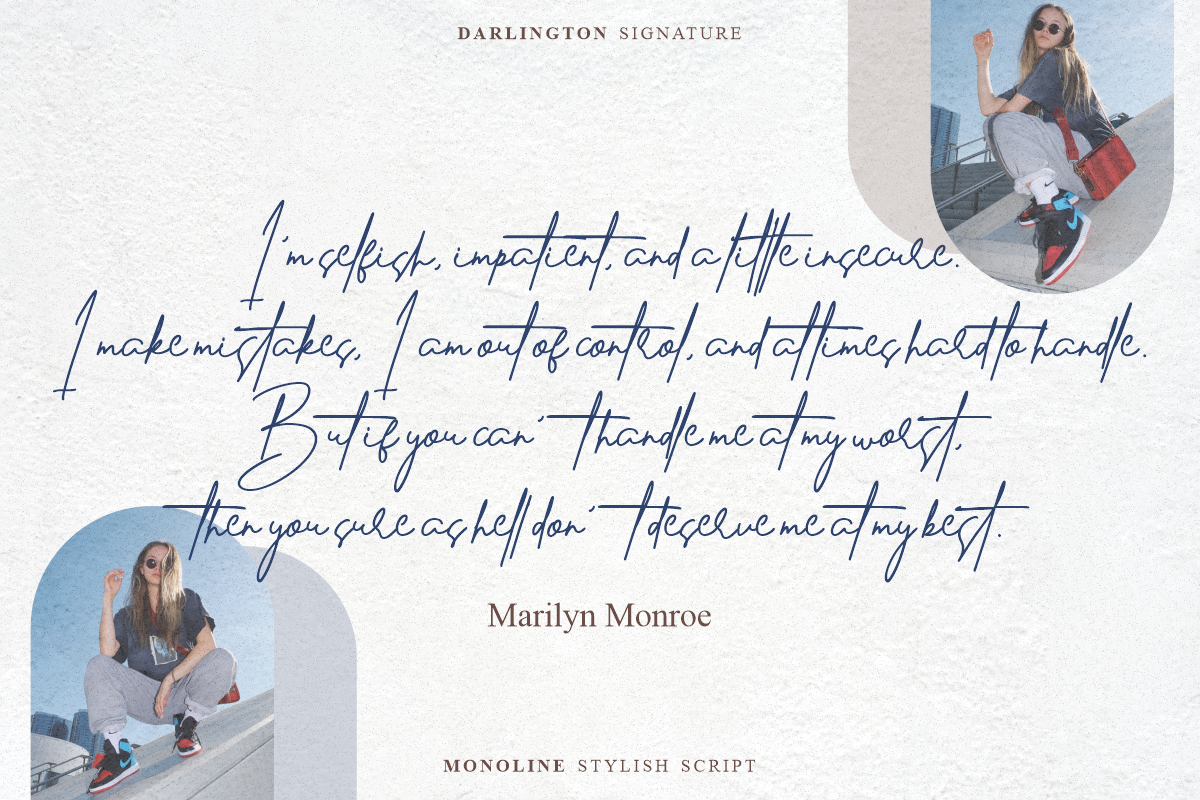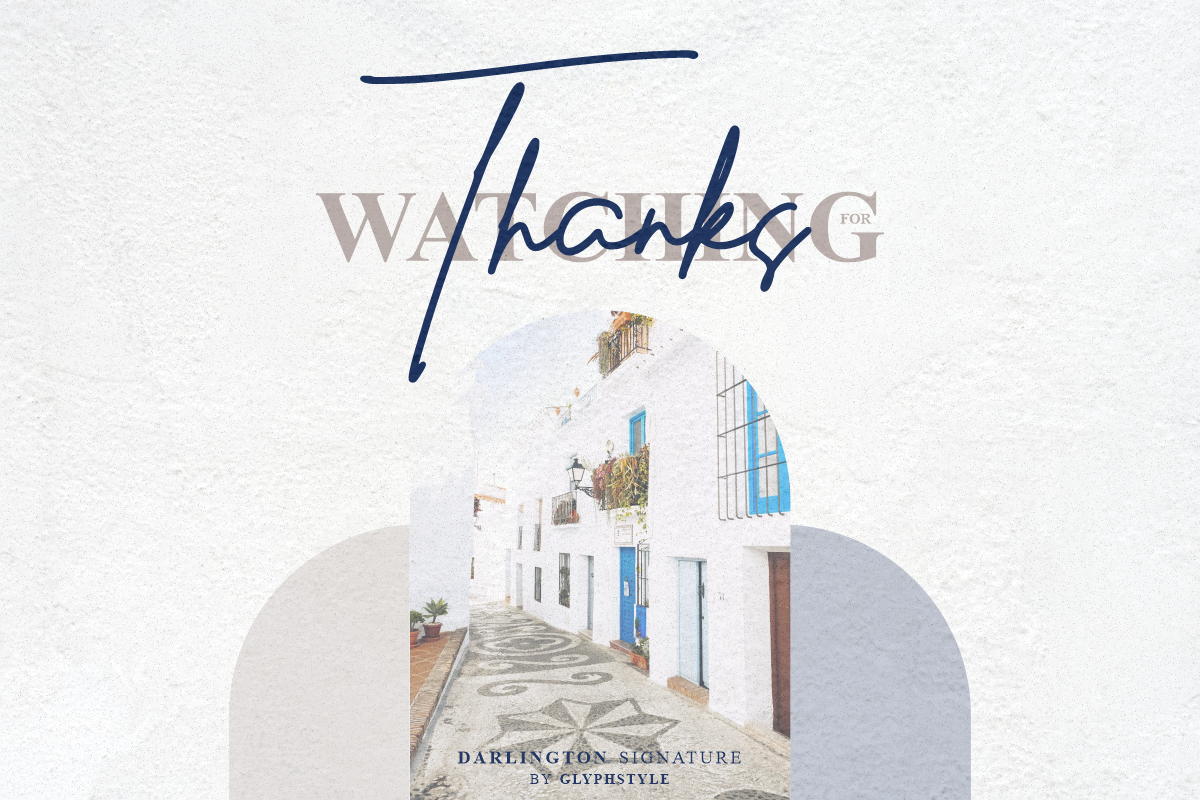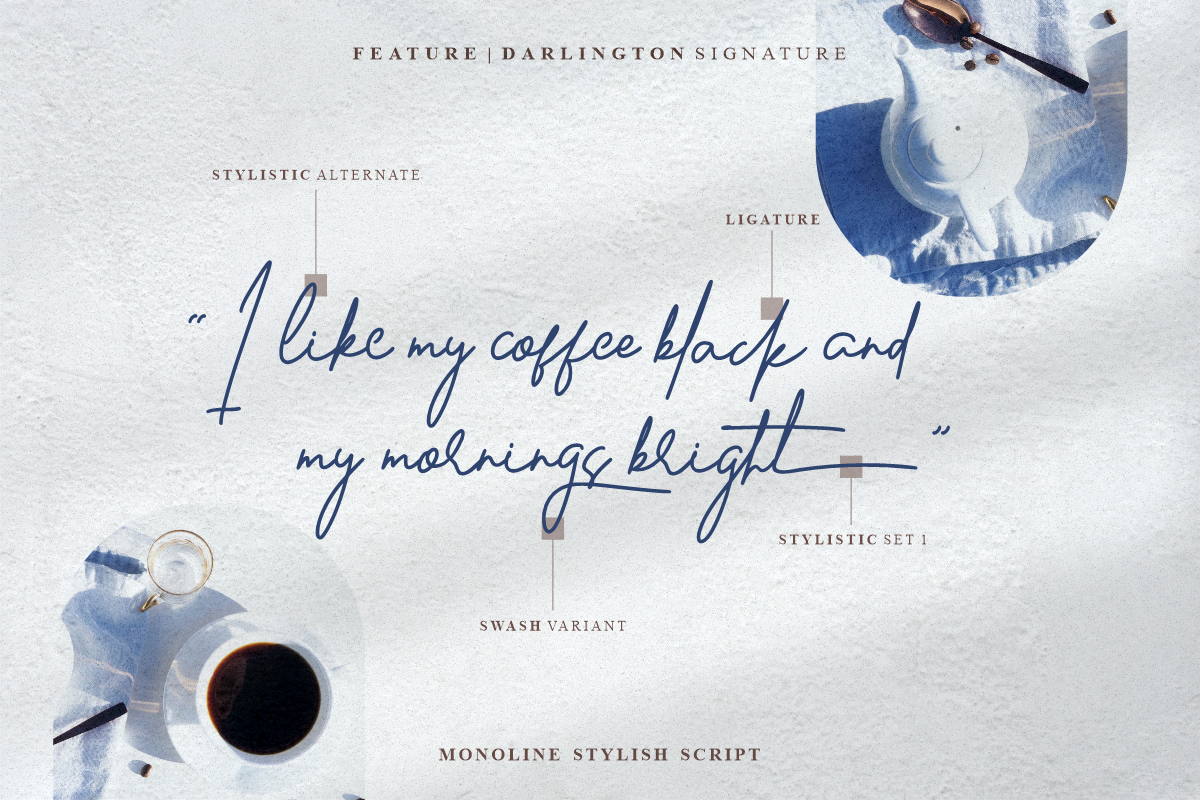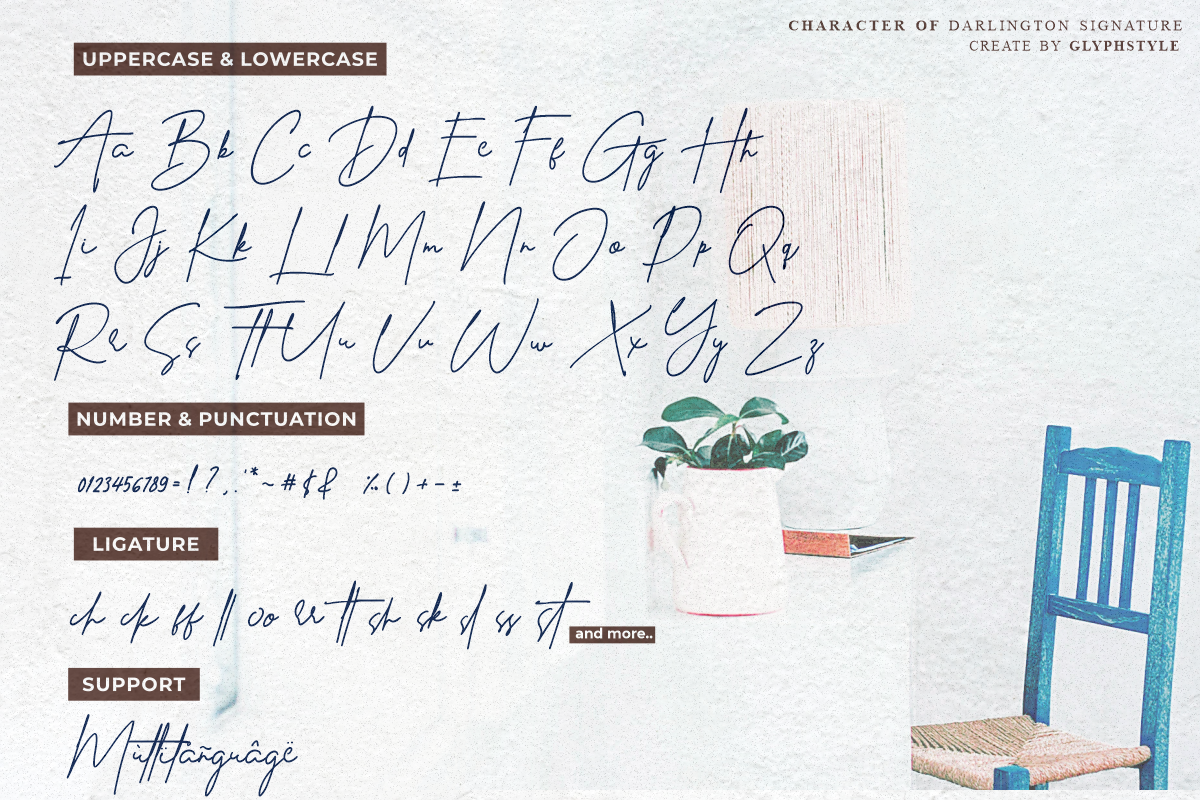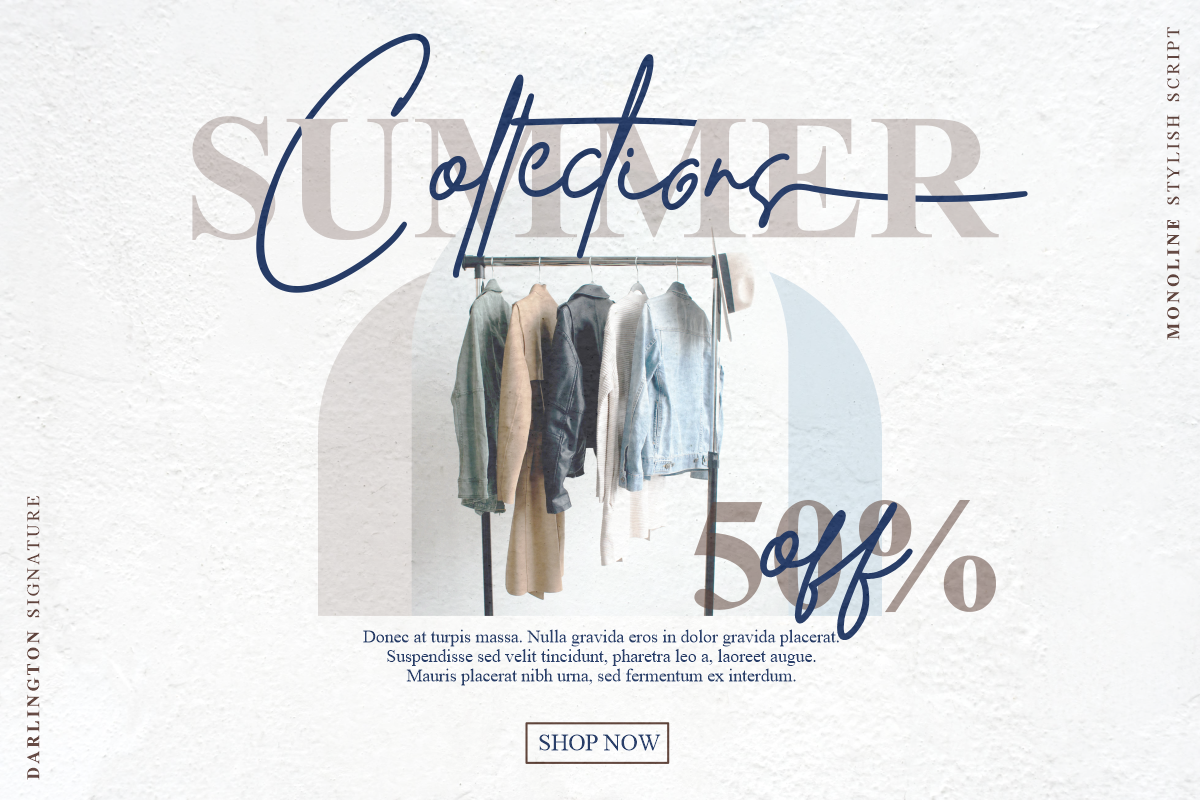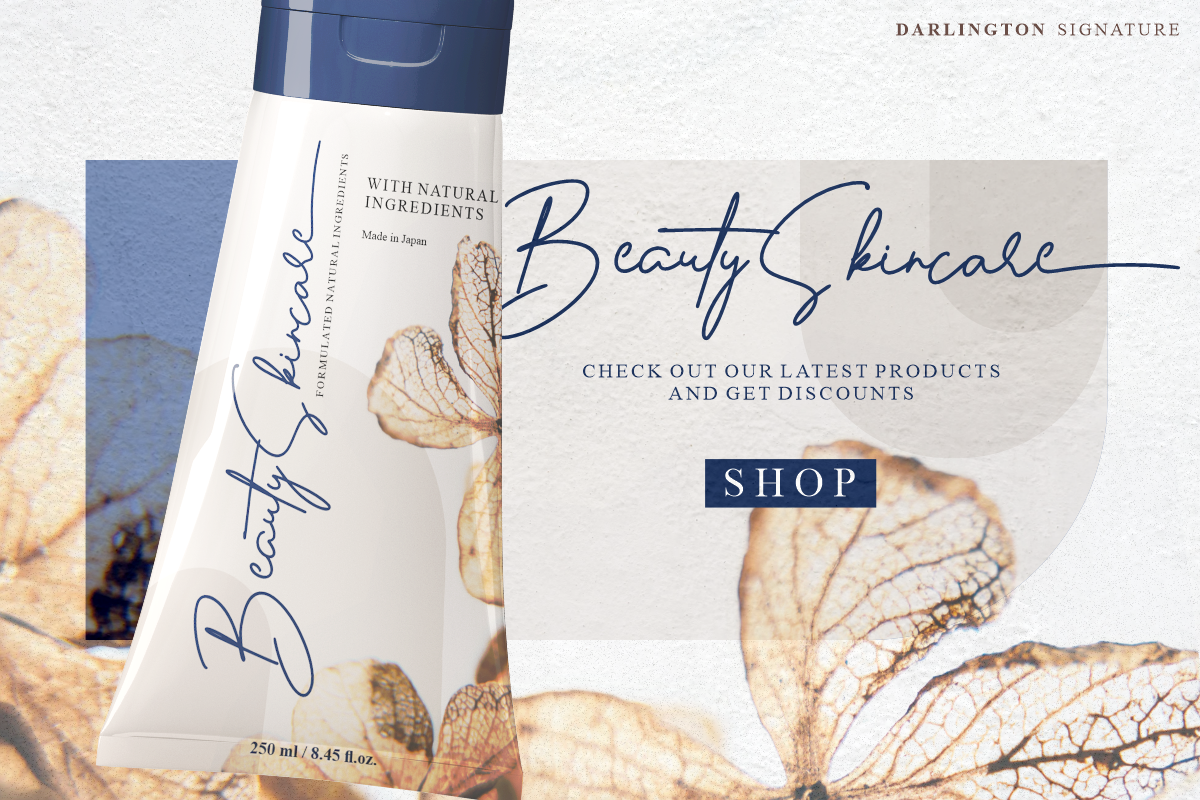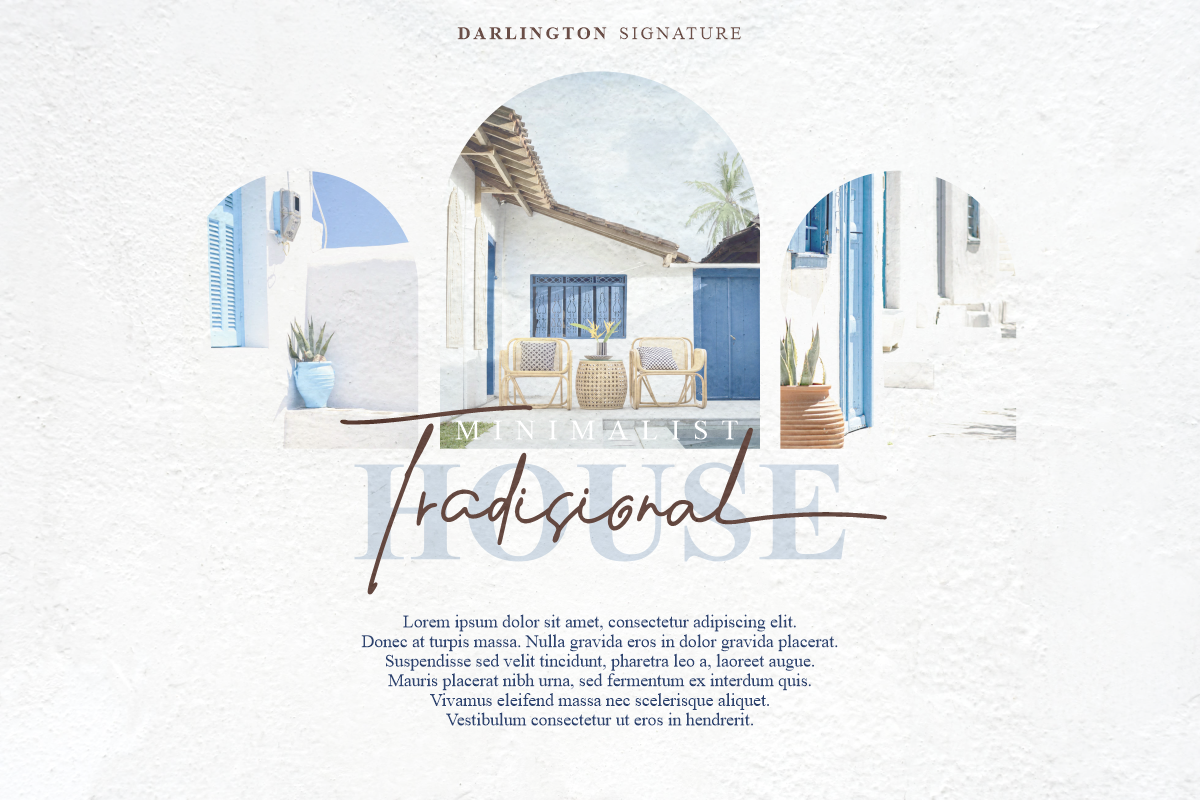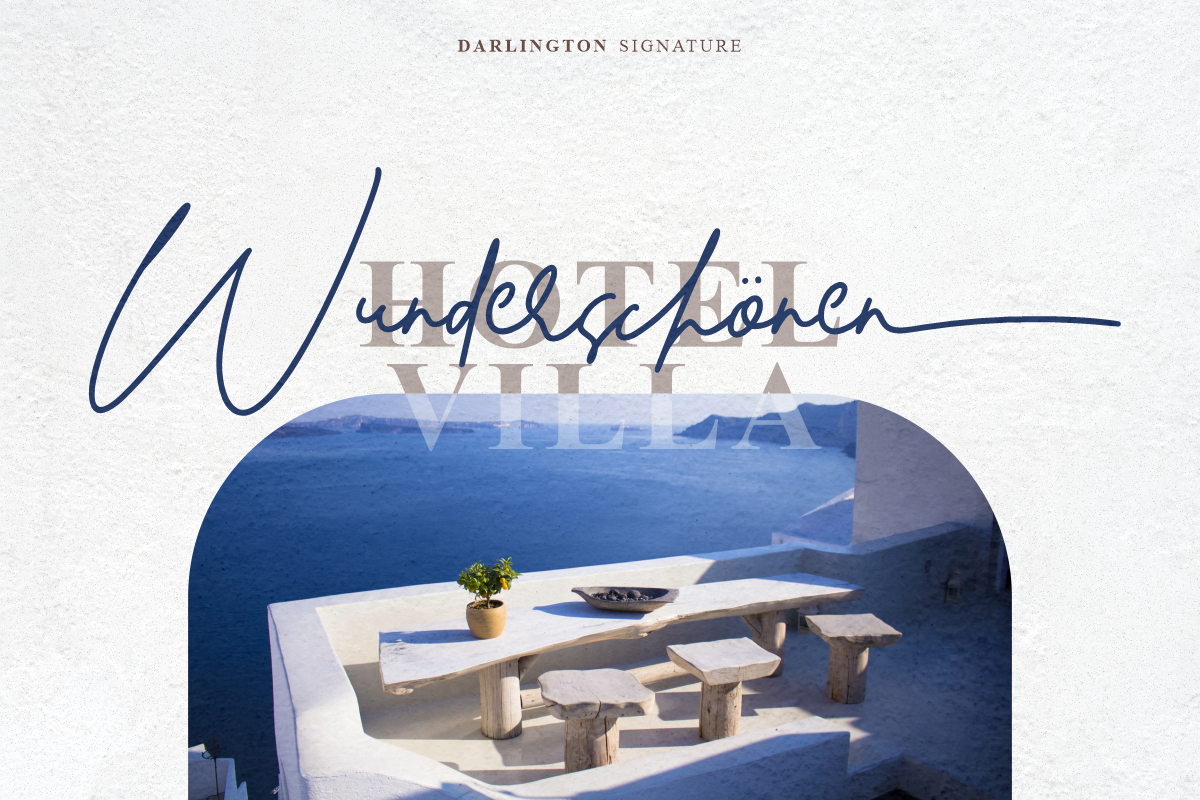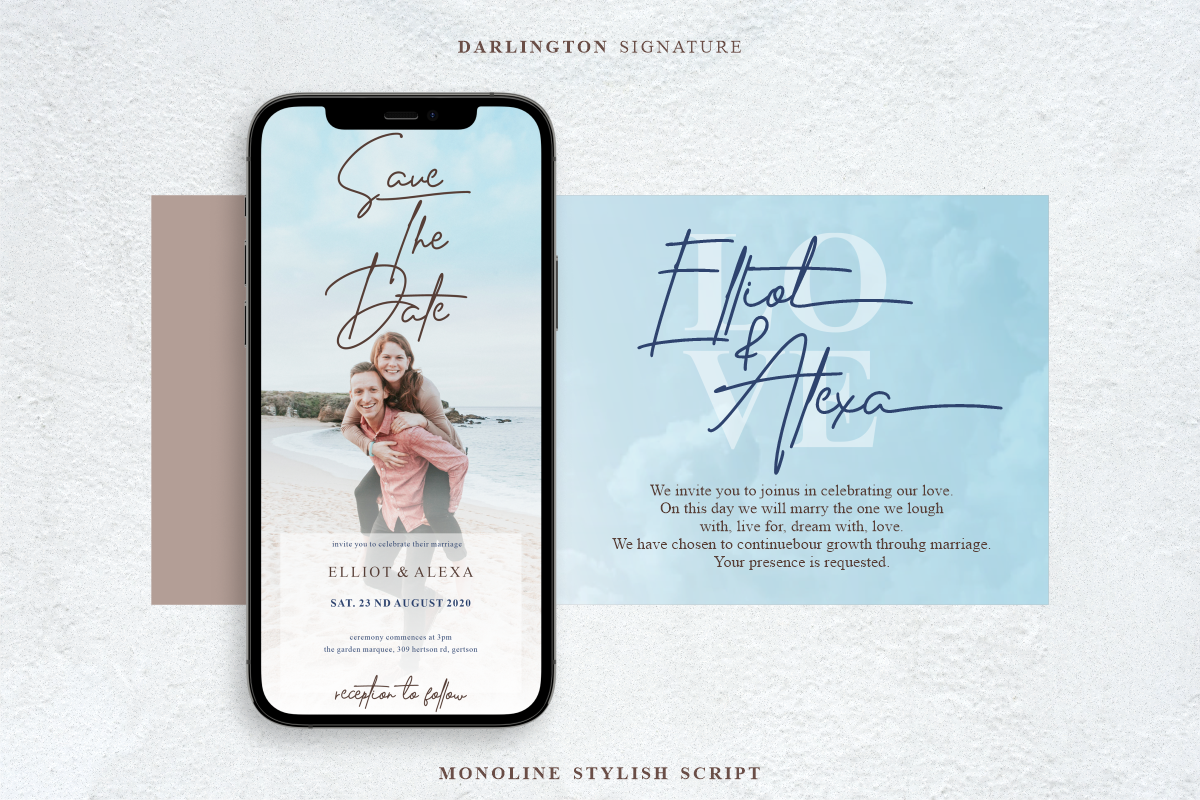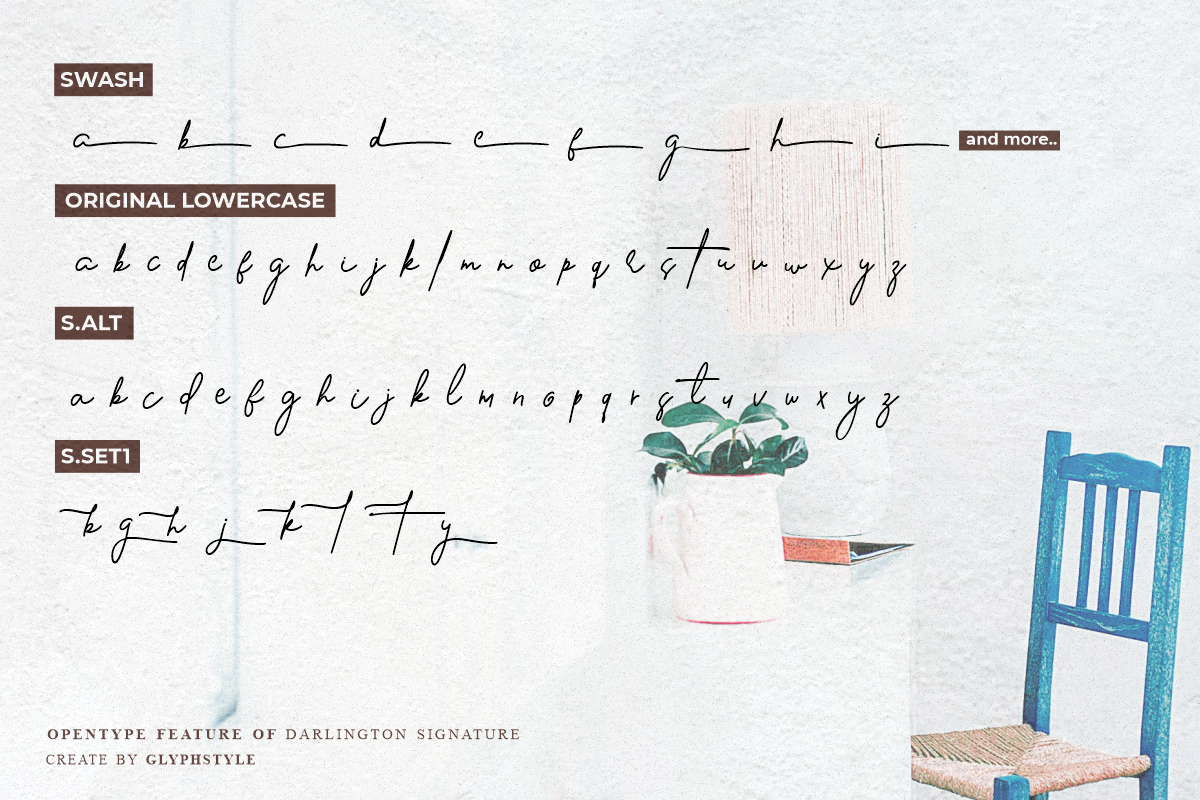
Darlington Signature
Darlington is a modern signature script font, looks stylish and fashionable. The elegant curves make this font very pretty.
Darlington is perfect for branding projects, logos, wedding designs, social media posts, advertisements, product packaging, product designs, labels, photography, watermarks, invitations, stationery, and any project that requires a sense of handwritten signature.
- Font feature
Uppercase, Lowercase, Numerals & Punctuations, Stylistic Alt, Stylistic Set, Swash Ligature, Multilanguage